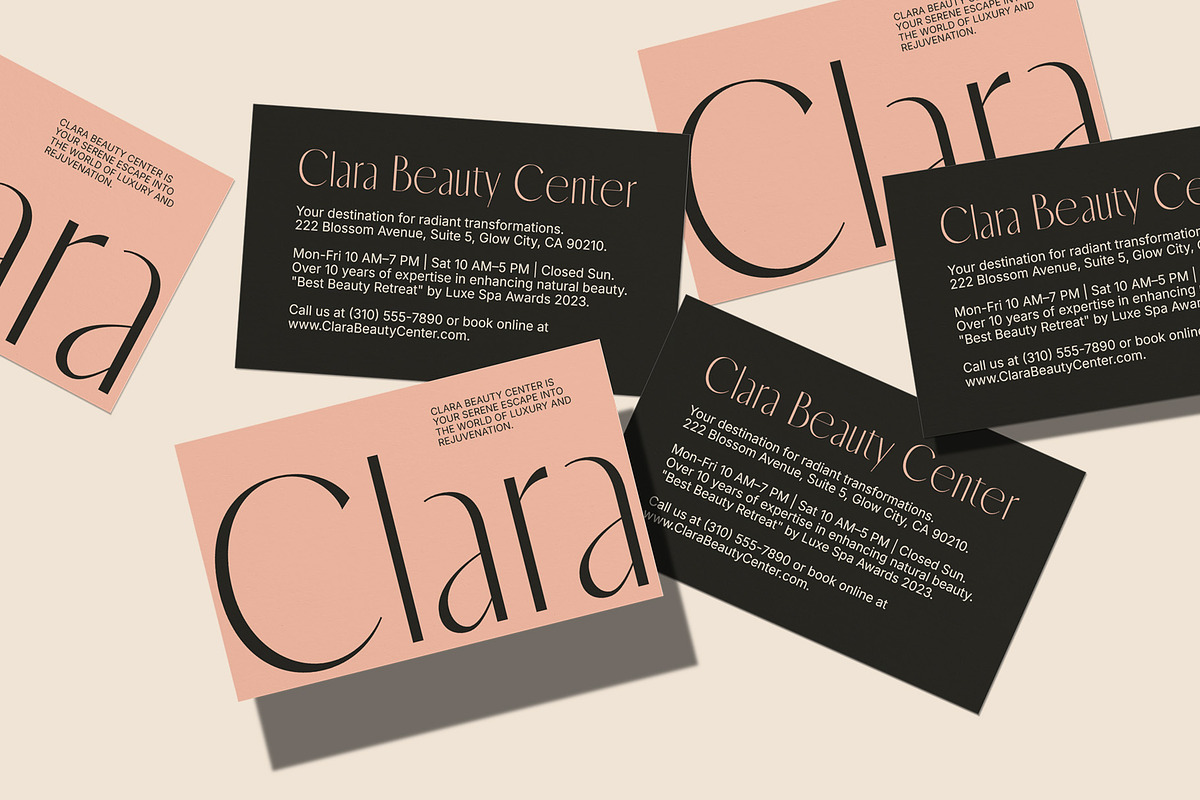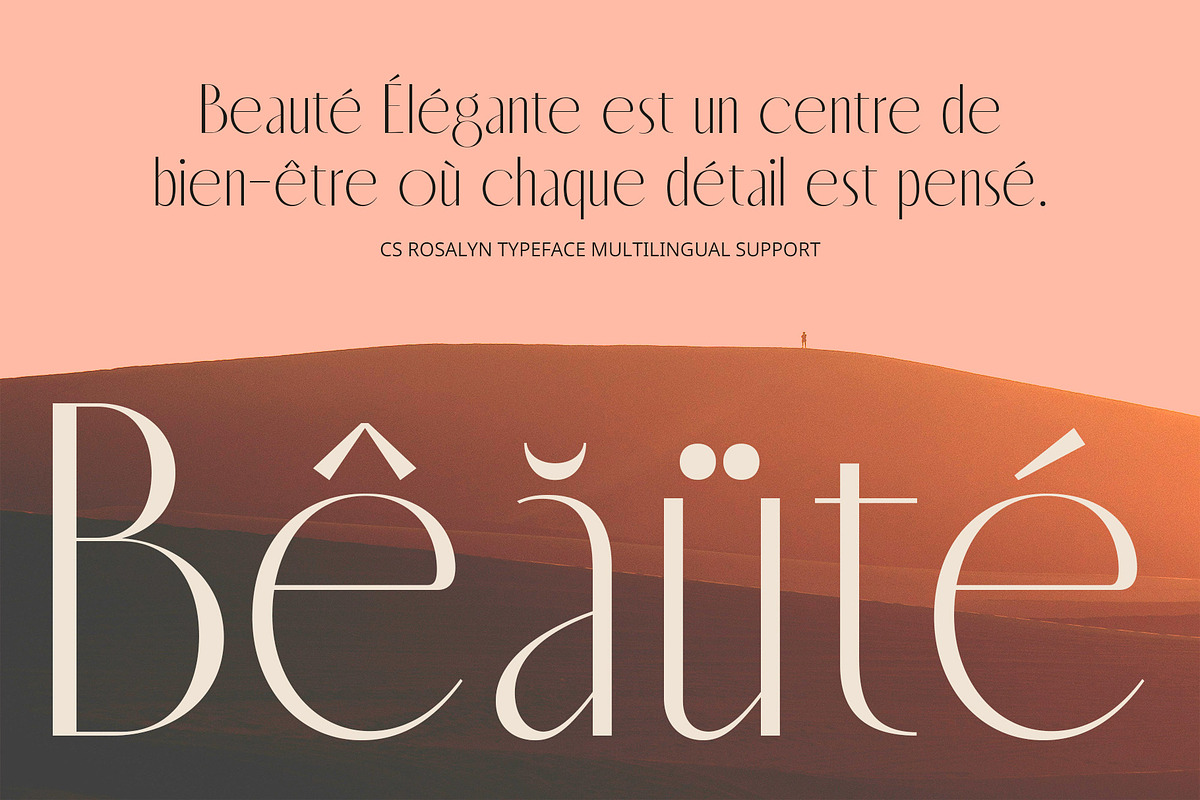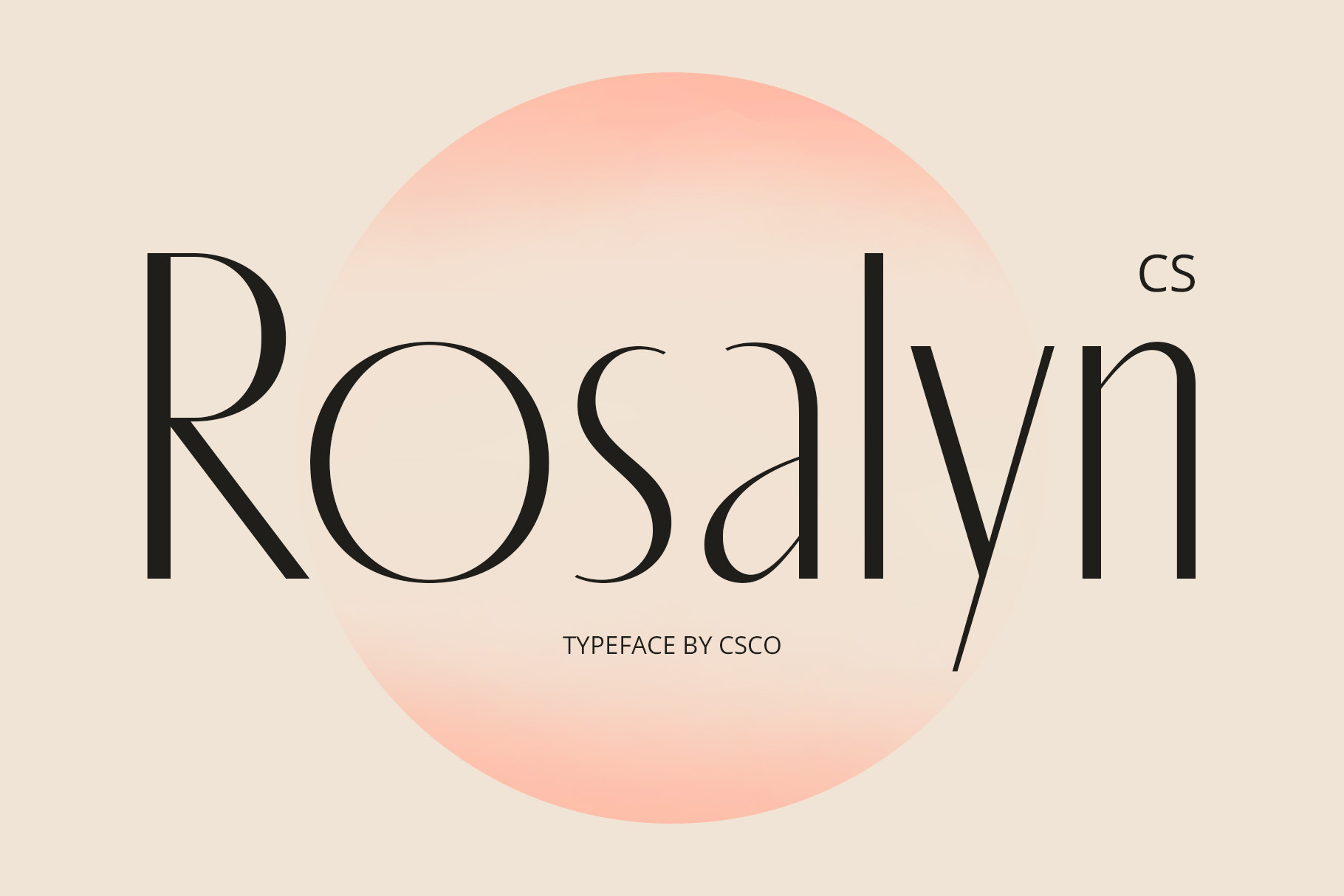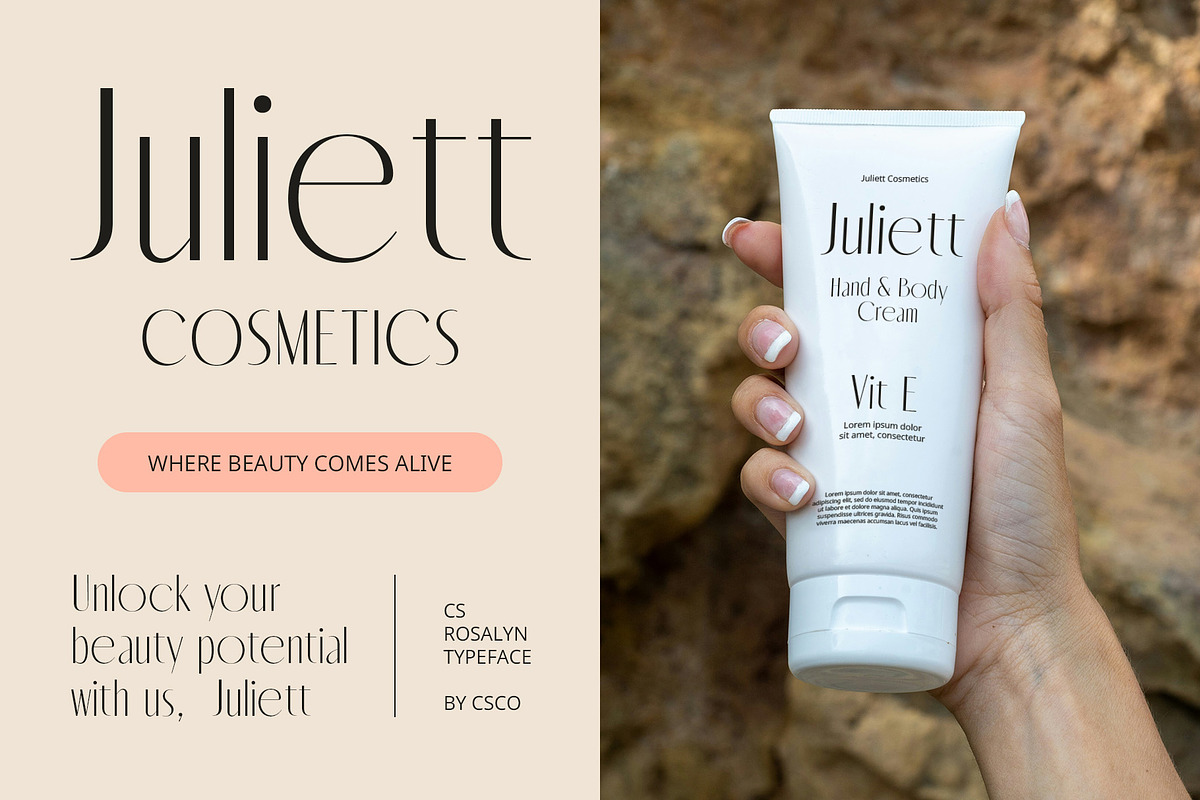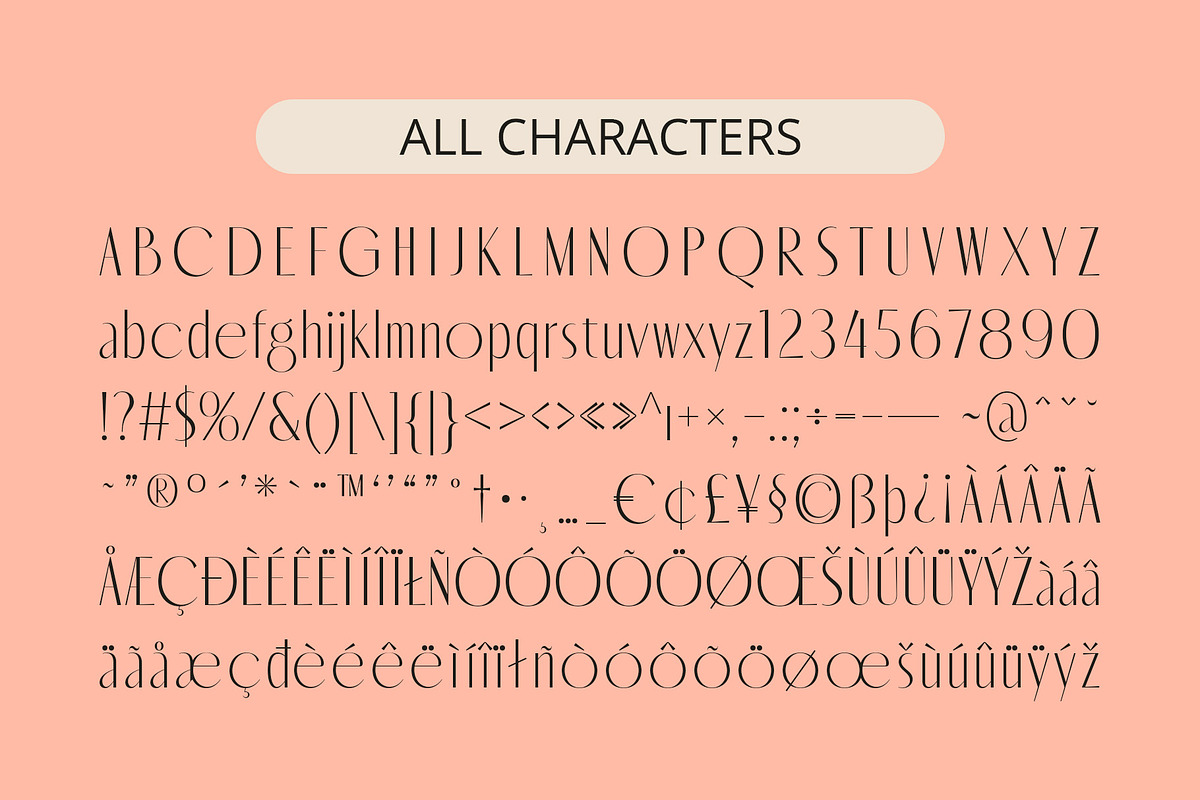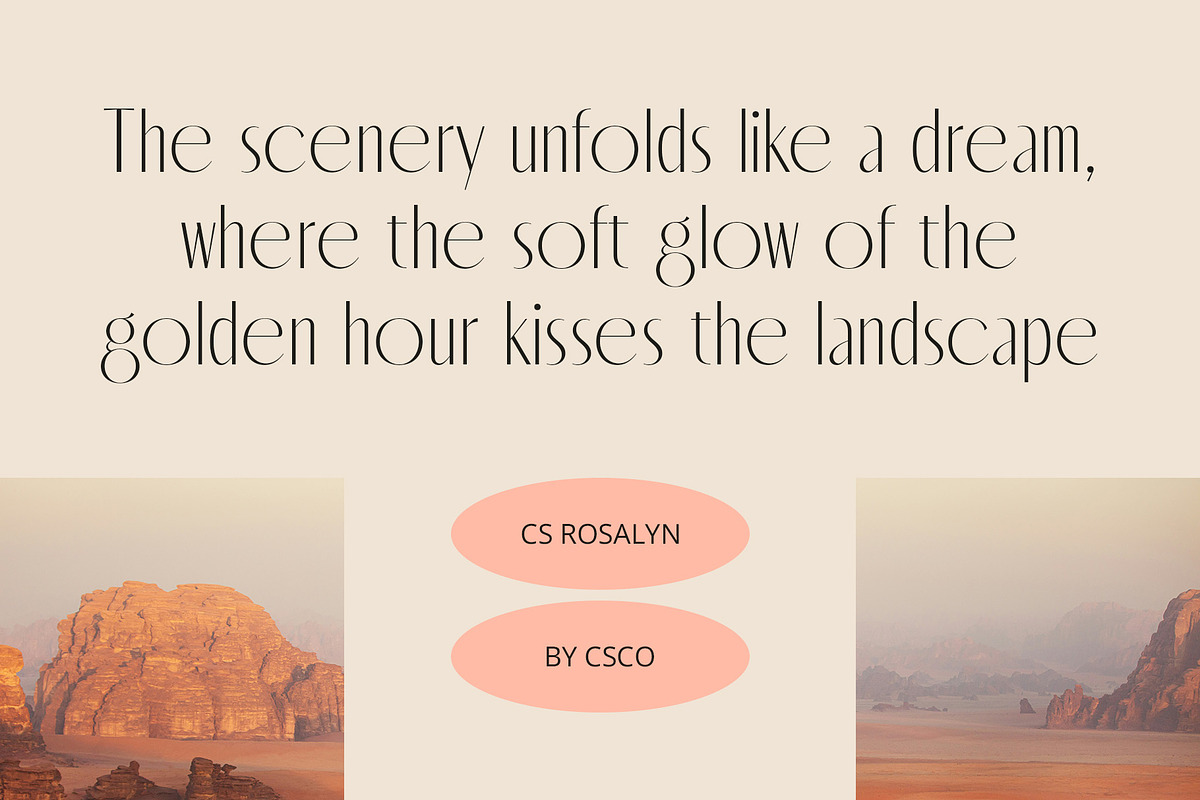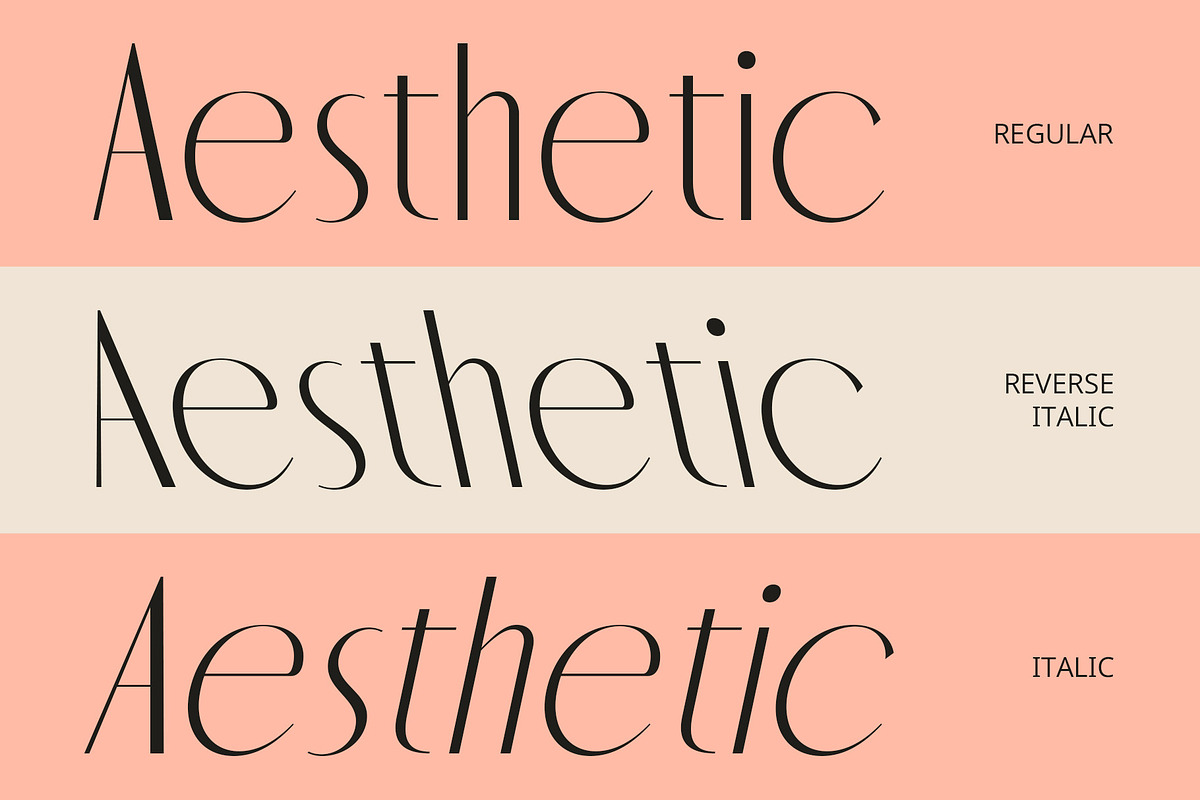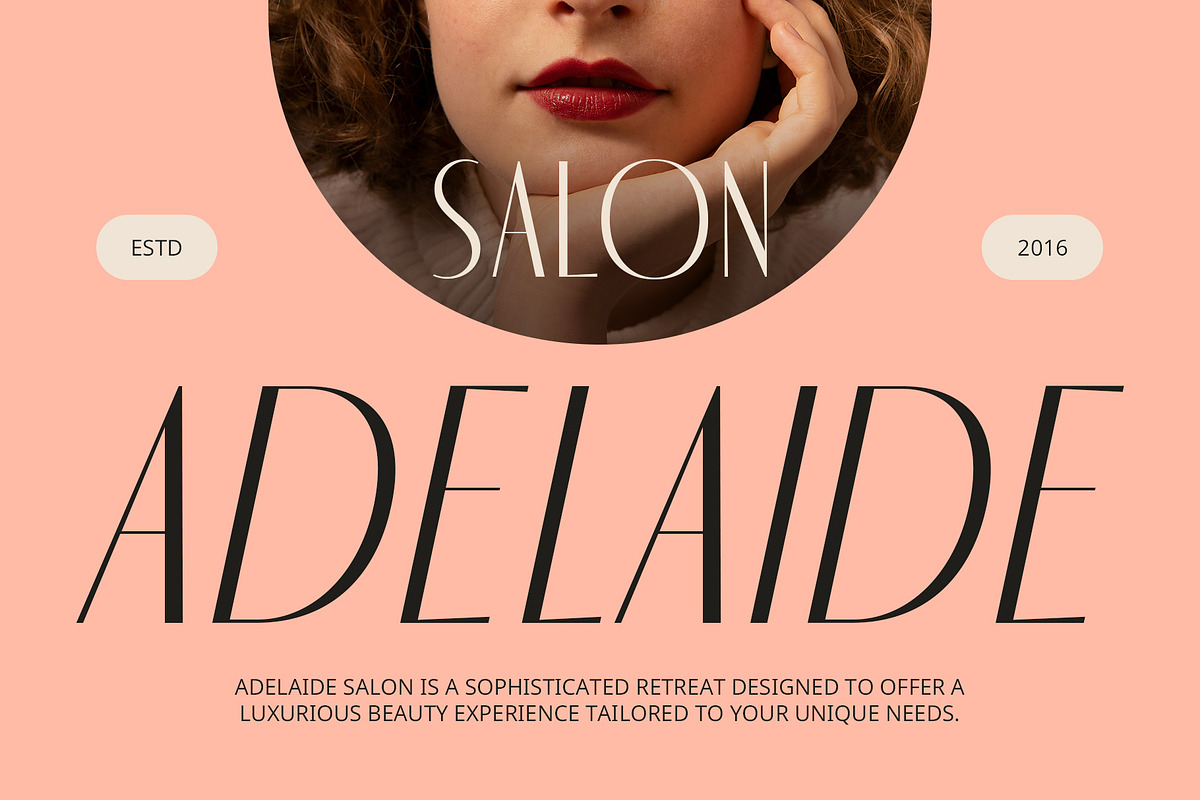
CS Rosalyn – Aesthetic Font
CS Rosalyn – Aesthetic Font: The Essence of Modern Elegance
A Sleek and Minimalist Aesthetic Font CS Rosalyn is a modern sans serif font that embodies the essence of simplicity and sophistication. Its sleek and minimalist design prioritizes clean, elegant lines and well-maintained proportions, creating a contemporary yet timeless look. The font’s thin letterforms evoke a sense of lightness and fluidity, while its careful balance of space delivers a harmonious and aesthetically pleasing impression. Perfectly crafted for designs that aim to highlight the beauty of simplicity, CS Rosalyn enhances any project with its effortless modern elegance.
Simplicity Meets Sophistication This font embraces the power of minimalism, eliminating unnecessary embellishments to focus on clarity and sophistication. Its sleek structure communicates modernity while maintaining an air of understated luxury. With no excess decoration, CS Rosalyn excels in projects where simplicity and elegance are paramount, offering an unobtrusive yet striking appearance. The streamlined design ensures it remains both readable and visually appealing, making it perfect for a variety of professional applications.
Ideal for Luxury and Editorial Designs CS Rosalyn’s clean and balanced look makes it a perfect fit for luxury branding, high-end editorial designs, and formal invitations. Its modern sensibility aligns well with digital applications, corporate identity projects, and any design that demands a refined, professional aesthetic. Whether used for websites, fashion editorials, or premium product packaging.
- CS Rosalyn Regular
- CS Rosalyn Italic
- CS Rosalyn Reverse Italic